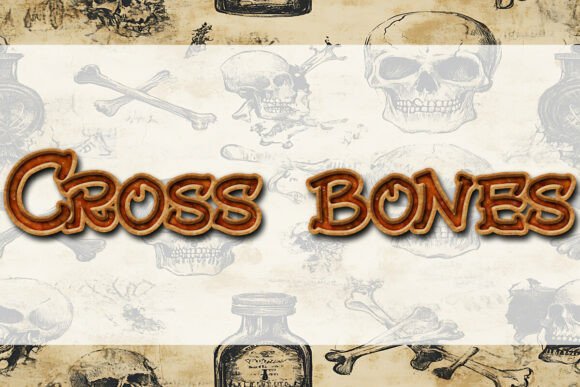
Unleash Your Creativity with Cross Bones Font: The Ultimate Design Companion
Immerse yourself in the captivating allure of Cross Bones, a font that transcends mere typography to become a canvas for sparking creativity. This versatile and dynamic font is designed to breathe life into your designs, turning everyday projects into captivating narratives that engage and inspire. Whether you’re a designer, crafter, or DIY enthusiast, Cross Bones is the perfect companion to help you unlock your full creative potential.
Elevate Your Designs with Cross Bones
From flamboyant shirts and fetching stickers to cohesive branding and riveting magazines, Cross Bones effortlessly weaves a captivating narrative that draws in your audience. Its unique charm and character make it the perfect choice for projects that demand attention and personality. With Cross Bones, you can:
- Create eye-catching apparel and accessories that showcase your personal style
- Design stickers and decals that pop with personality and flair
- Develop cohesive branding that tells a story and resonates with your audience
- Produce riveting magazines and publications that leave a lasting impression
The Power of Cross Bones in Digital Design
Cross Bones is more than just a font – it’s a design experience. When used in SVG files, it transforms them into pieces of art that showcase your creativity and attention to detail. Whether you’re designing greeting cards, social media posts, or digital invitations, Cross Bones adds a touch of elegance and sophistication that makes your work stand out.
With Cross Bones, you can:
- Turn greeting cards into handwritten notes from the heart
- Create social media posts that are irresistibly engaging and shareable
- Design digital invitations that set the tone for special occasions
Bringing Life to Cricut Projects and Posters
Cross Bones is a game-changer for Cricut users and poster designers. Its unique character and versatility make it the perfect choice for projects that demand attention and personality. With Cross Bones, you can:
- Breathe life into Cricut projects, from custom vinyl decals to intricate paper crafts
- Turn posters into attention magnets that draw in your audience
- Create custom signs and banners that showcase your personality and style
The Transformative Power of Cross Bones
Cross Bones is more than just a font – it’s a design movement. Its transformative power lies in its ability to turn everyday projects into captivating narratives that engage and inspire. With Cross Bones, every character tells a story, and every design becomes a reflection of your creativity and personality.
Whether you’re a seasoned designer or a DIY enthusiast, Cross Bones is the perfect companion to help you unlock your full creative potential. So why wait? Discover the transformative power of Cross Bones today and start creating designs that captivate, inspire, and leave a lasting impression.
In conclusion, Cross Bones is a font that offers endless possibilities for designers, crafters, and DIY enthusiasts. Its versatility, uniqueness, and transformative power make it the perfect choice for projects that demand attention and personality. With Cross Bones, you can unlock your full creative potential and create designs that tell a story, engage your audience, and leave a lasting impression.